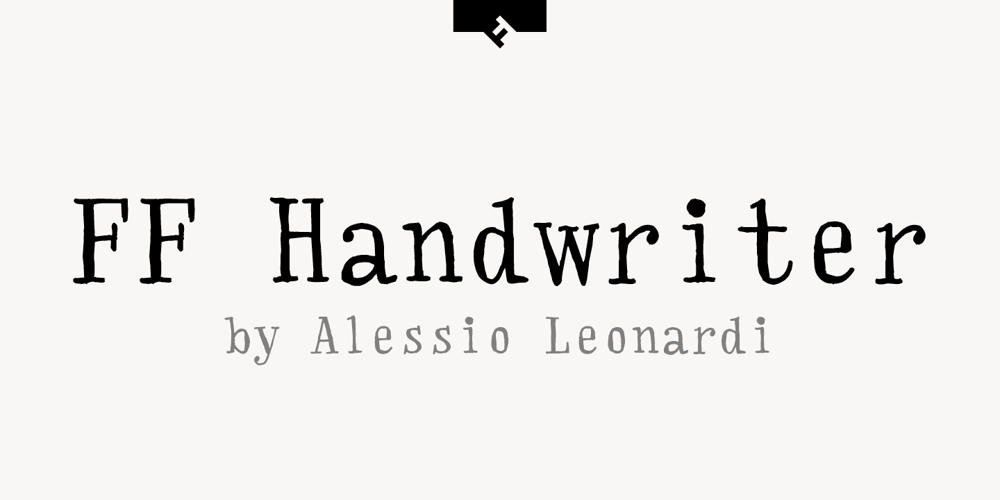
FF Handwriter Font Family was designed by Alessio Leonardi and published by FontFont. FF Handwriter contains 3 styles and family package options. Italian type designer Alessio Leonardi created this display FontFont in 1997. The family contains 3 weights and is ideally suited for editorial and publishing. FF Handwriter provides advanced typographical support with features such as ligatures, alternate characters, and case-sensitive forms. It comes with tabular lining and tabular oldstyle figures.